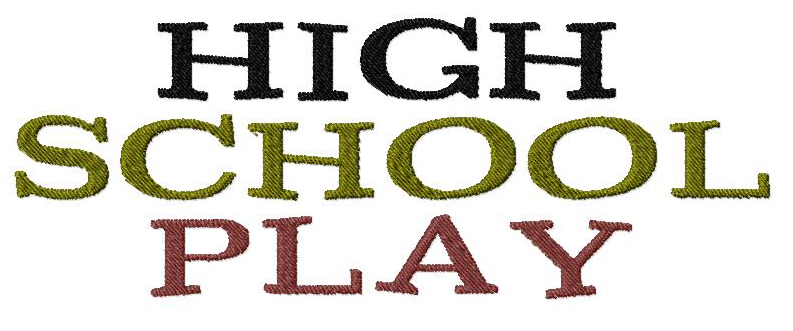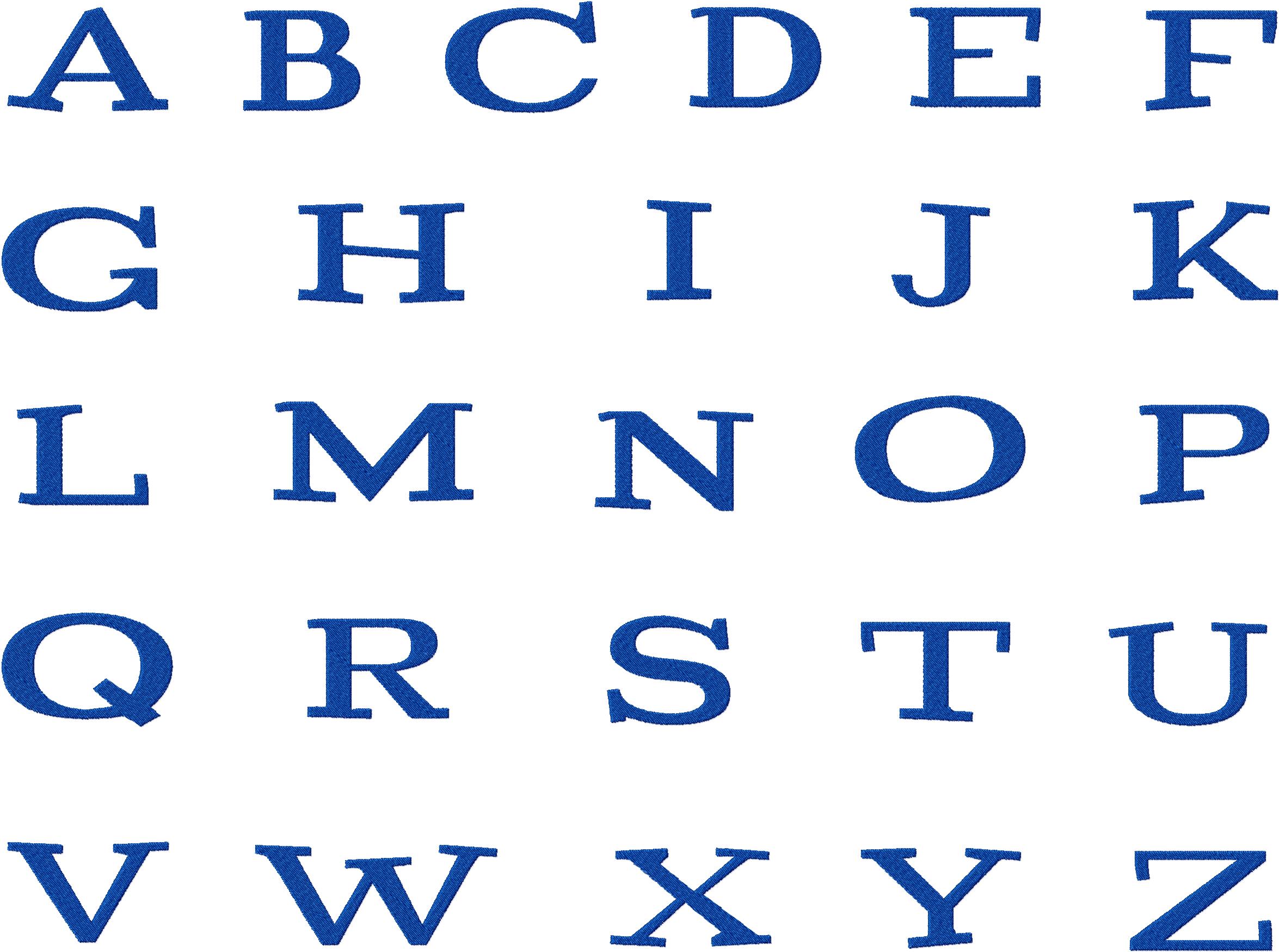
Put on a production with today's free machine embroidery design font titled High School Play. These big bold letters are the perfect monogramming choice to showcase your next project. Download it free for today only!